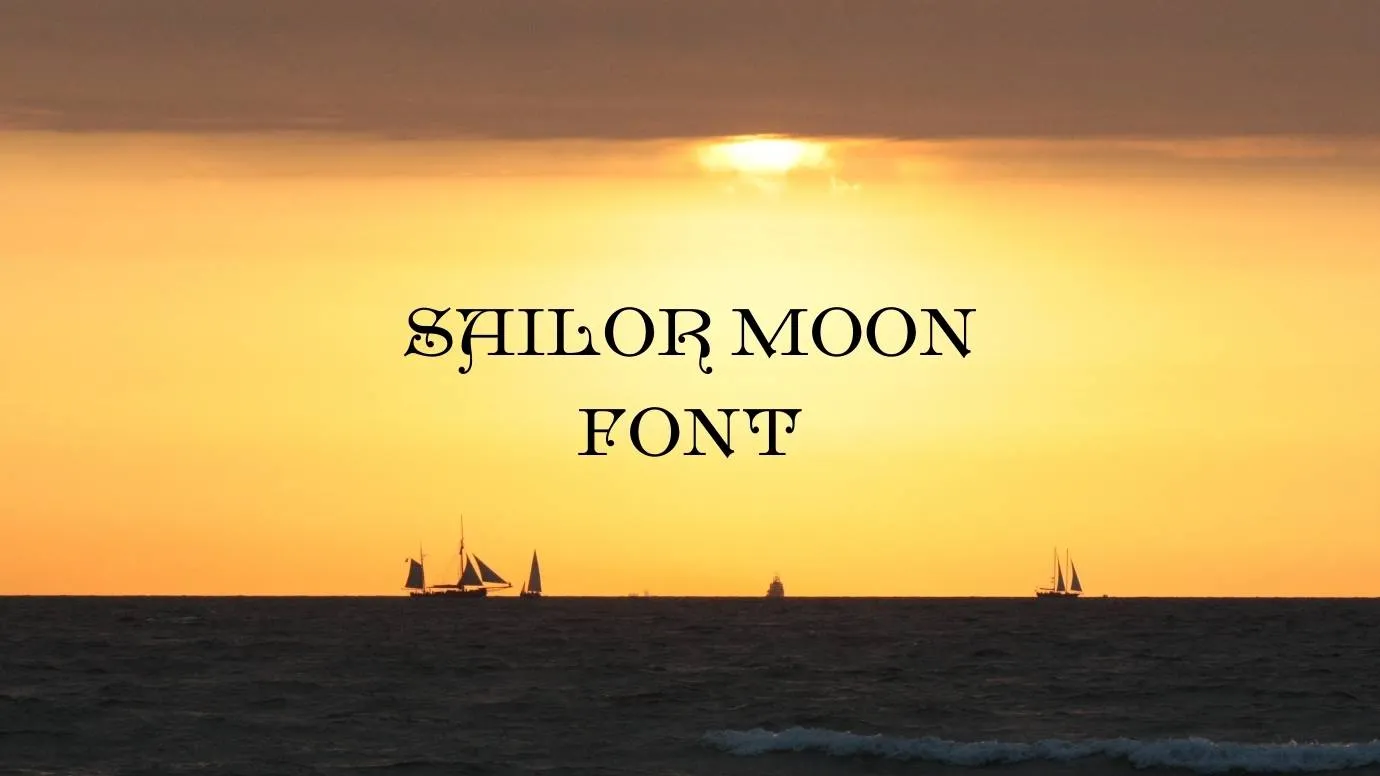
Sailor Moon Font Family is a truly remarkable font that belongs to the Display font family. It was crafted by the distinguished female designer, Tadano Kazuko. It first made its appearance between 1991 and 1997 in Nakayoshi Magazine.
Sailor Moon Font Family
NameSailor Moon Font
DesignerTadano Kazuko
StyleDisplay